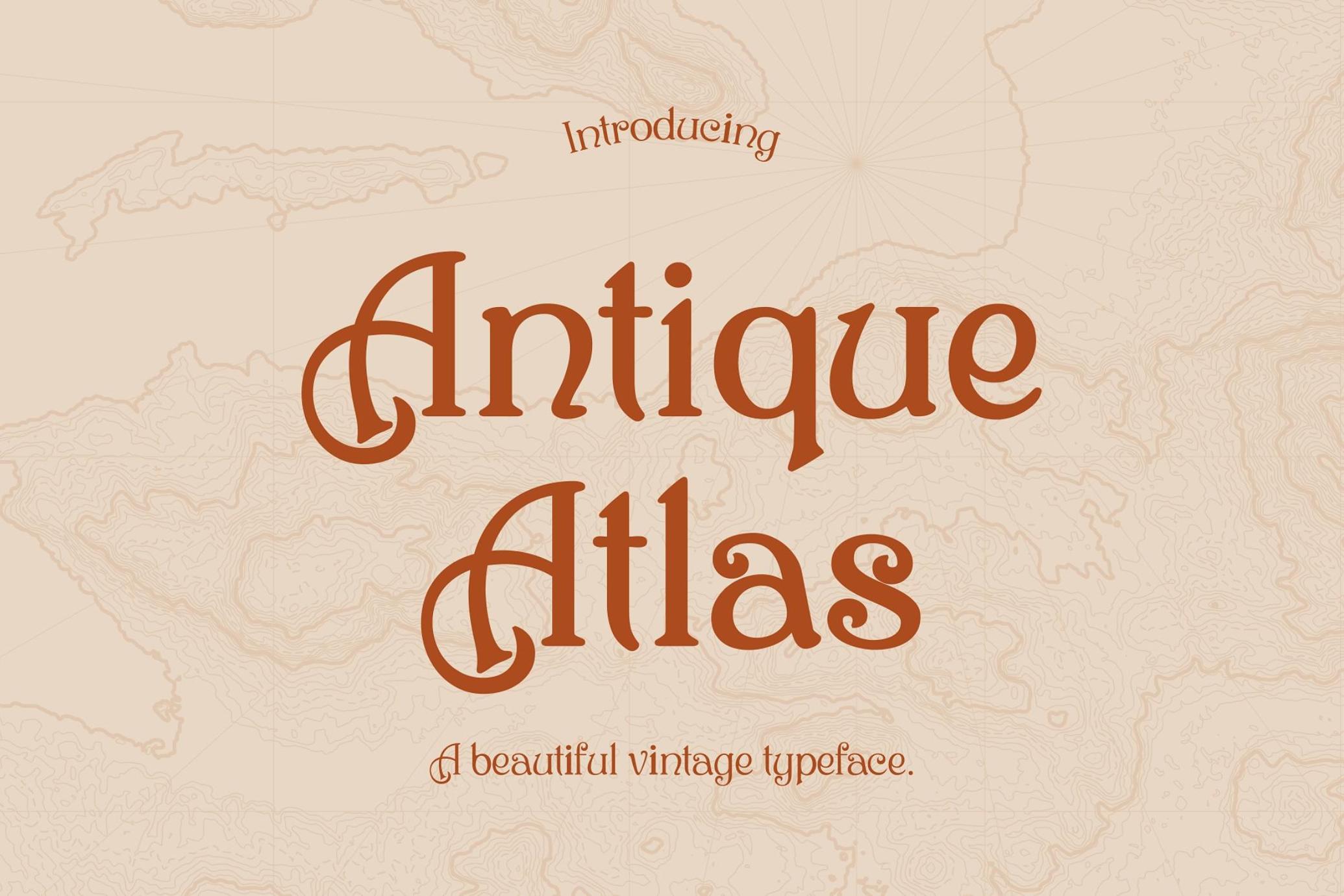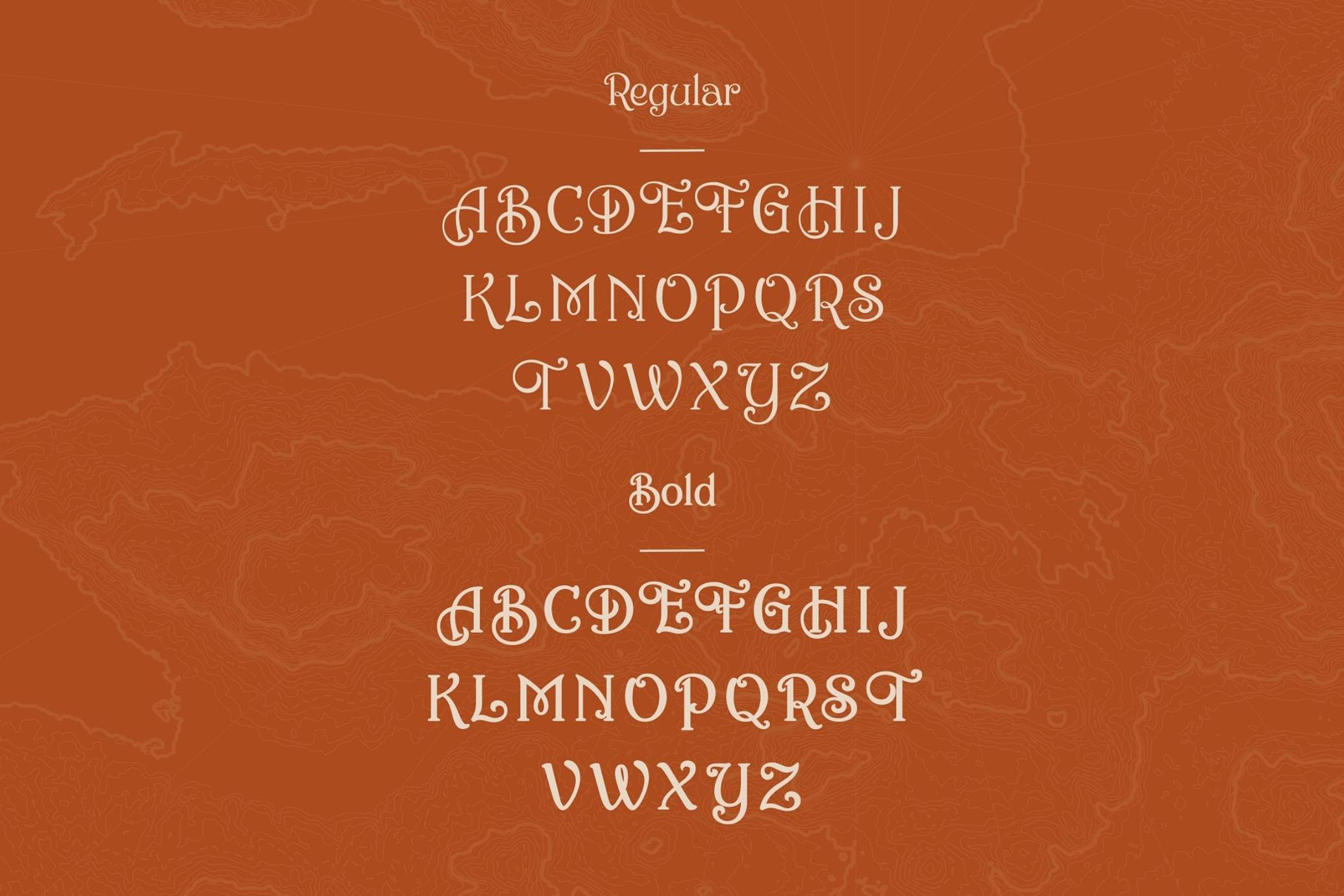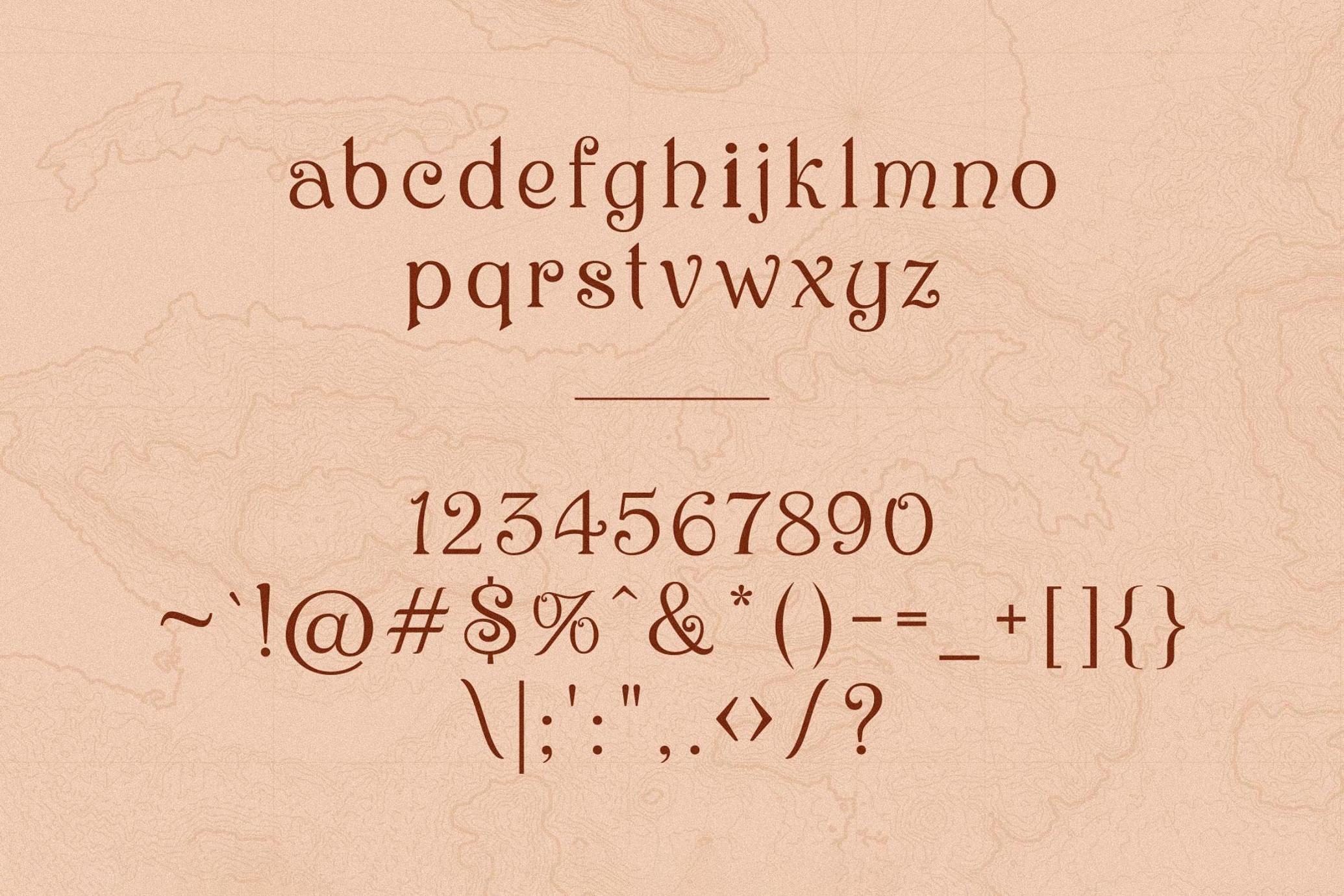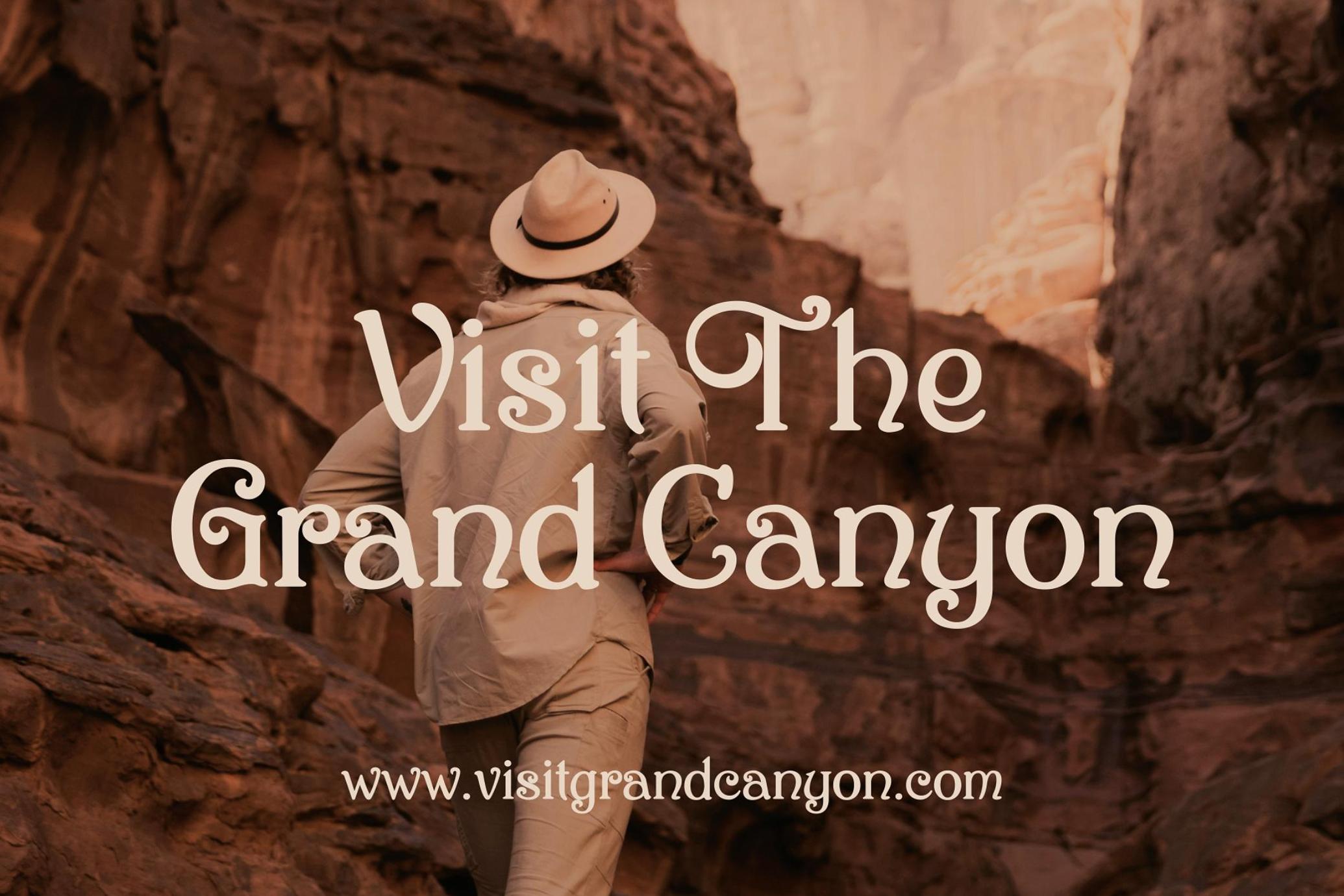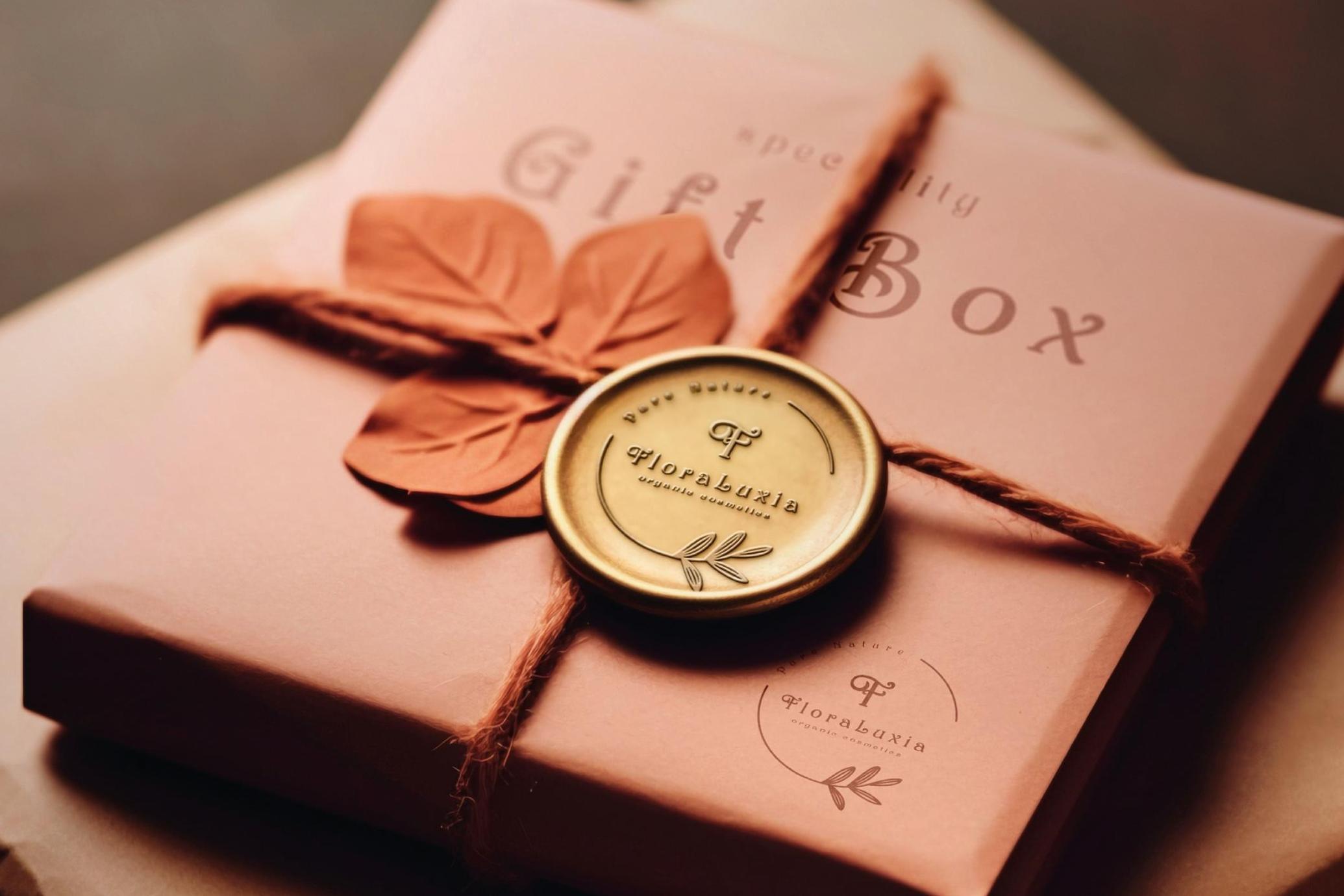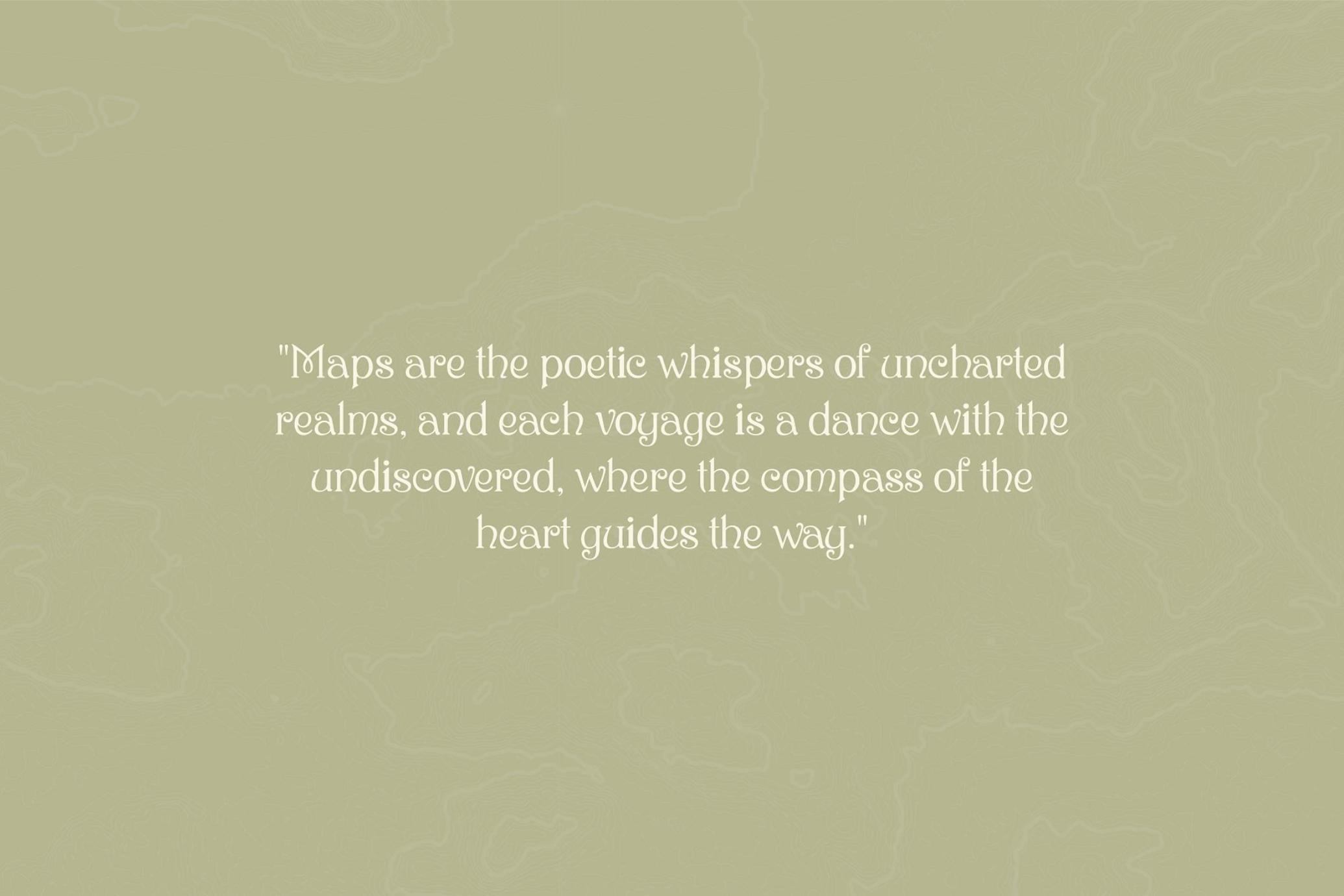
Antique Atlas - Vintage Typeface
Antique Atlas, a vintage typeface, is a true masterpiece in the realm of typography, effortlessly capturing the essence of a bygone era with its drop-dead gorgeous design. This font is a harmonious blend of traditional charm and contemporary precision, making it an exceptional choice for projects that require a touch of nostalgia without compromising on clarity and readability.
The typeface's clean lines and beautifully crafted characters exude an air of sophistication and elegance, making every word set in Antique Atlas a memorable experience. Its aesthetic appeal is matched by its versatility, seamlessly fitting into a wide array of design contexts from classic book covers to elegant invitations.
This font isn't just about looks; it's a functional powerhouse too. Antique Atlas strikes a perfect balance between decorative flair and practical application, ensuring that its vintage charm enhances rather than overpowers the message it conveys. The typeface is particularly well-suited for branding, packaging, and editorial projects, where its unique character can shine and leave a lasting impression.
Whether used in large headlines or as logos, Antique Atlas retains its distinctive beauty, bringing a timeless elegance to any design it graces. This typeface is a must-have for designers who appreciate the allure of the past, yet demand the crisp execution of modern design standards.